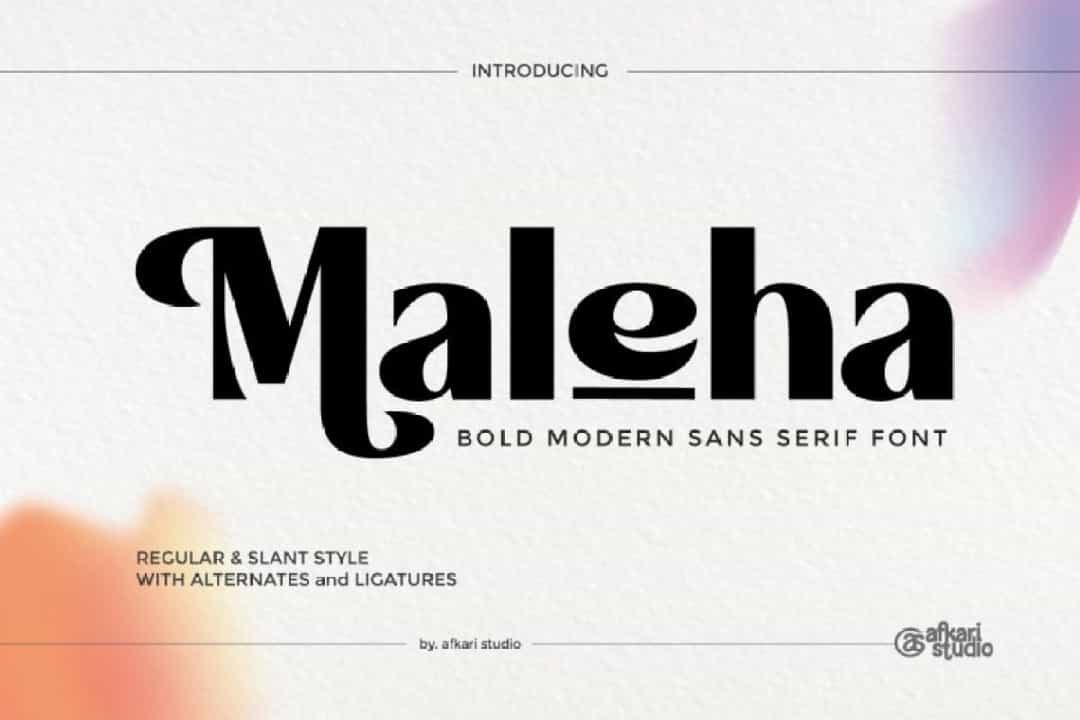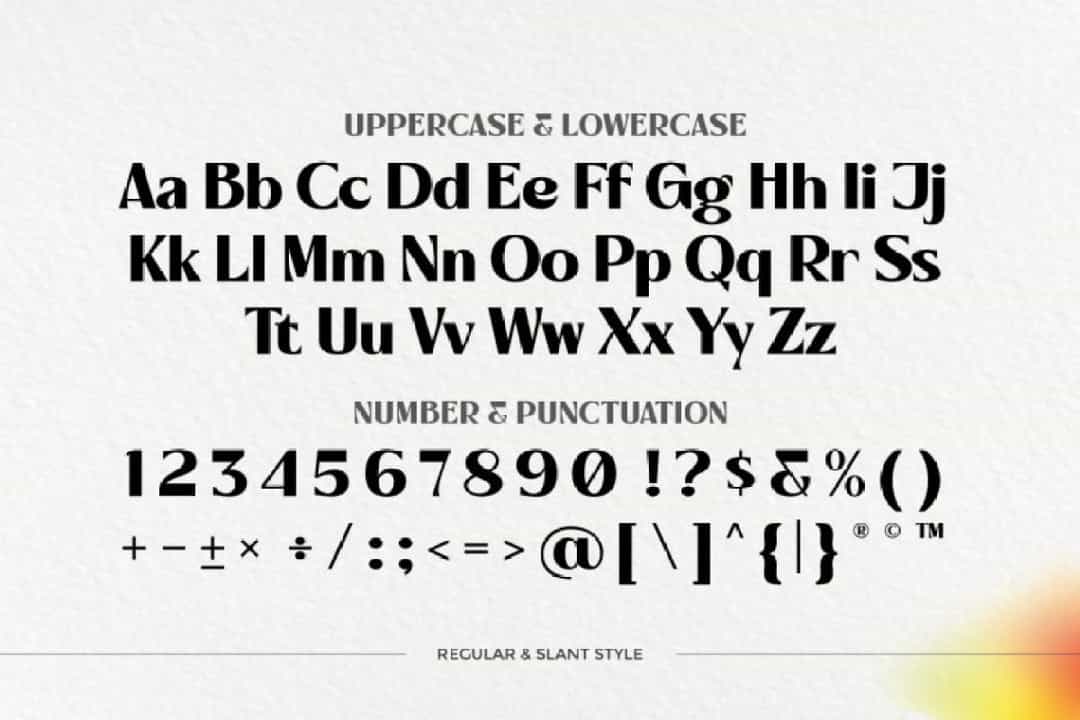
Maleha font is a stand-out contemporary sans serif font designed to make any project pop with its elegant and striking contemporary style. Hand-crafted, Maleha brings modern professionalism and fashion together seamlessly in its two styles–regular and slant. Available for download for free today, Maleha lets you effortlessly convey an air of professionalism through designs.